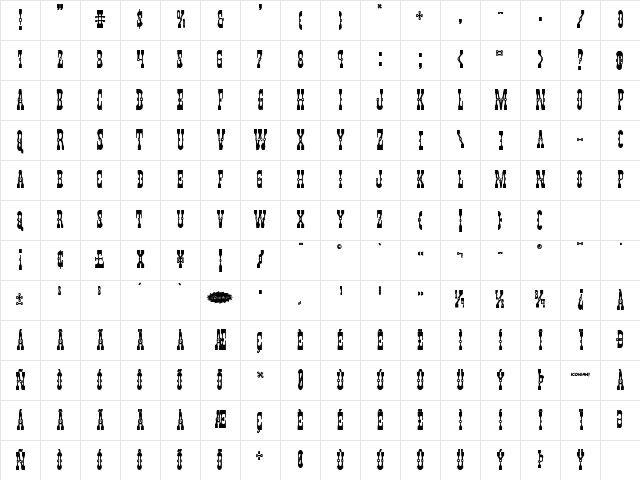
Complete Younger Brothers Bold glyph index. Displaying only characters natively supported by Younger Brothers Bold font.
Younger Brothers is a composed and adaptable typeface that performs quietly and consistently across a wide range of design contexts. Its bold stroke weight gives it real presence on the page.